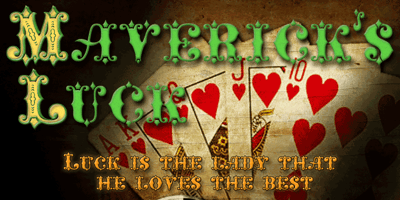
Maverick’s Luck
Maverick’s Luck font
Maverick’s Luck Font Family was designed by Michael Hagemann and published by FontMesa. Maverick’s Luck contains 2 styles and family package options. From a few letters found on an old bank document from 1876, Maverick’s Luck was born, and born again to give your projects that old western appearance. Maverick’s Luck comes with multiple fill fonts, you will need an application that works in layers in order to use the fill fonts that come with FontMesa fonts.